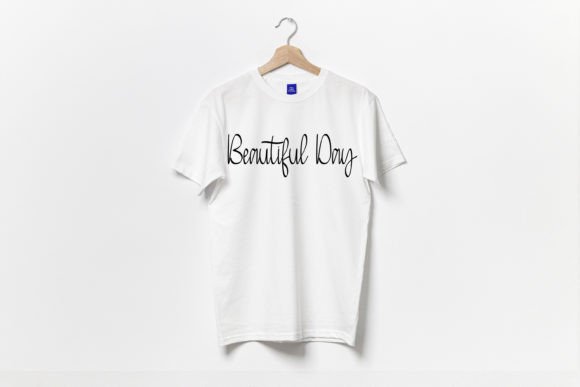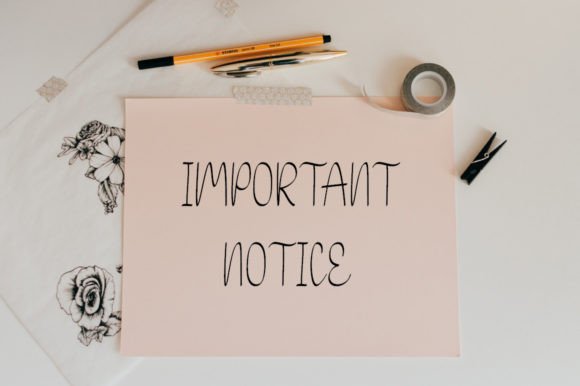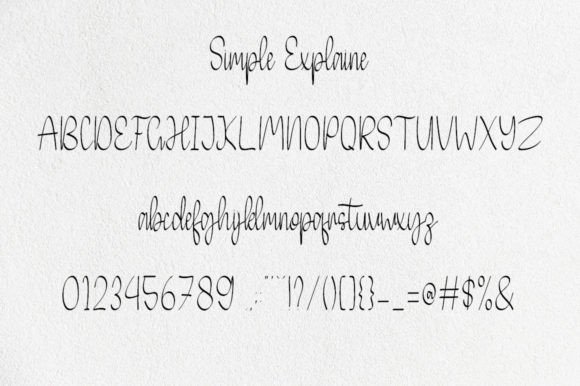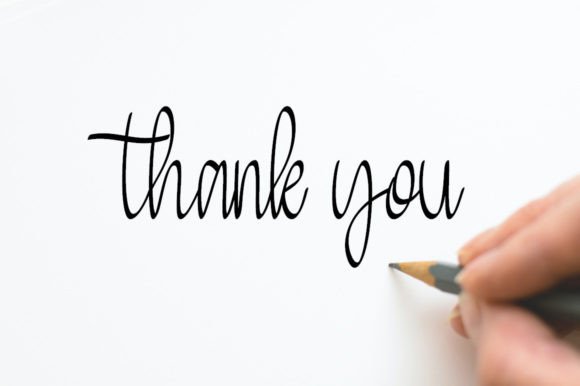
Introduction to Simple Explaine Font
Imagine you’re working on a design project, pouring your heart and soul into it, and you need the perfect font to give it that extra oomph. The search is on for a font that’s elegant, charming, and exudes a handwritten touch. After scouring through numerous design resources, you stumble upon the Simple Explaine Font – a game-changer for any creative project.
As a designer, you know how crucial the right font can be in elevating your design from good to great. That’s where the Simple Explaine Font comes in – a versatile and high-quality font that’s perfect for a variety of designs, from wedding invitations to logos and business cards. With its transparent background and free download option, it’s a valuable resource for designers who want to add a personal touch to their work.
Whether you’re working on a high-end creative project or a personal design venture, the Simple Explaine Font is sure to impress. In this article, we’ll delve into the world of this stunning font and explore its features, benefits, and uses – so you can unlock its full potential and take your designs to the next level.
Key Features of Simple Explaine Font
- Designed with a clean and minimalist aesthetic, perfect for digital designs and presentations.
- Perfect for use in logos, headings, and body text in creative projects, such as infographics, posters, and brochures.
Honest Review: Simple Explaine Font
I recently stumbled upon the Simple Explaine Font, a design resource that caught my attention. As a designer, I’m always on the lookout for high-quality fonts to elevate my creative projects.
One of the things that works well with this font is its versatility. The Simple Explaine Font is perfect for a variety of designs, from digital interfaces to print materials. Its clean and simple design makes it easy to read and understand, even on a transparent background.
- What works well: ✨ Versatile design, perfect for digital and print materials
- What works well: ✨ Easy to read and understand, even on a transparent background
- Limitation: ⚠️ Limited weights and styles available
Overall, I think the Simple Explaine Font is a solid design resource. While it may not be the most comprehensive font, it’s a great starting point for designers working on a creative project.
The Simple Explaine Font is a versatile and high-quality design resource ideal for various creative projects. With a transparent background, this font is perfect for overlays, icons, and graphics that require a clean and minimalistic look.
Comparison to Simple Explaine Font: Open Sans has a more neutral and sophisticated tone, whereas Simple Explaine Font is more playful and simplistic.